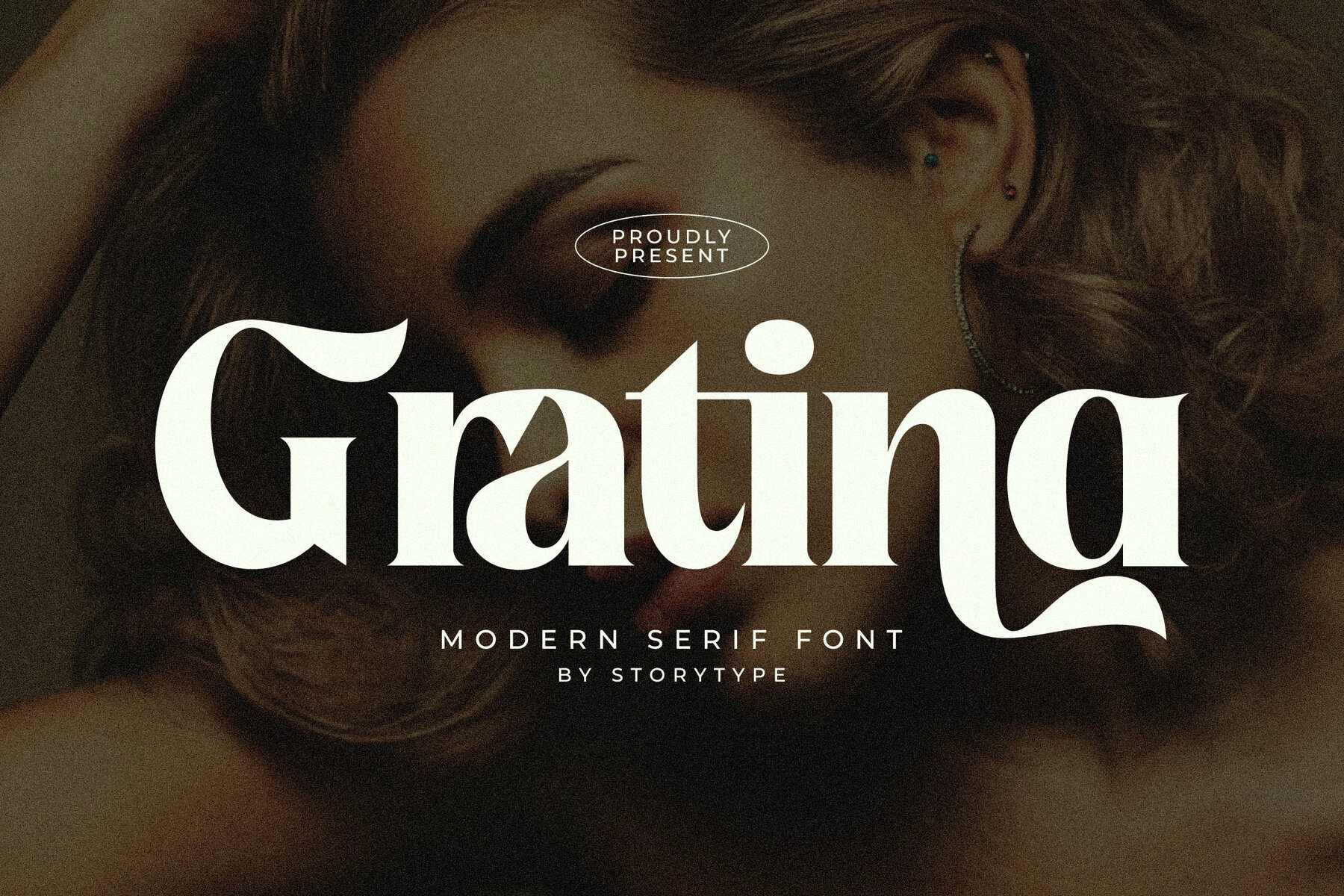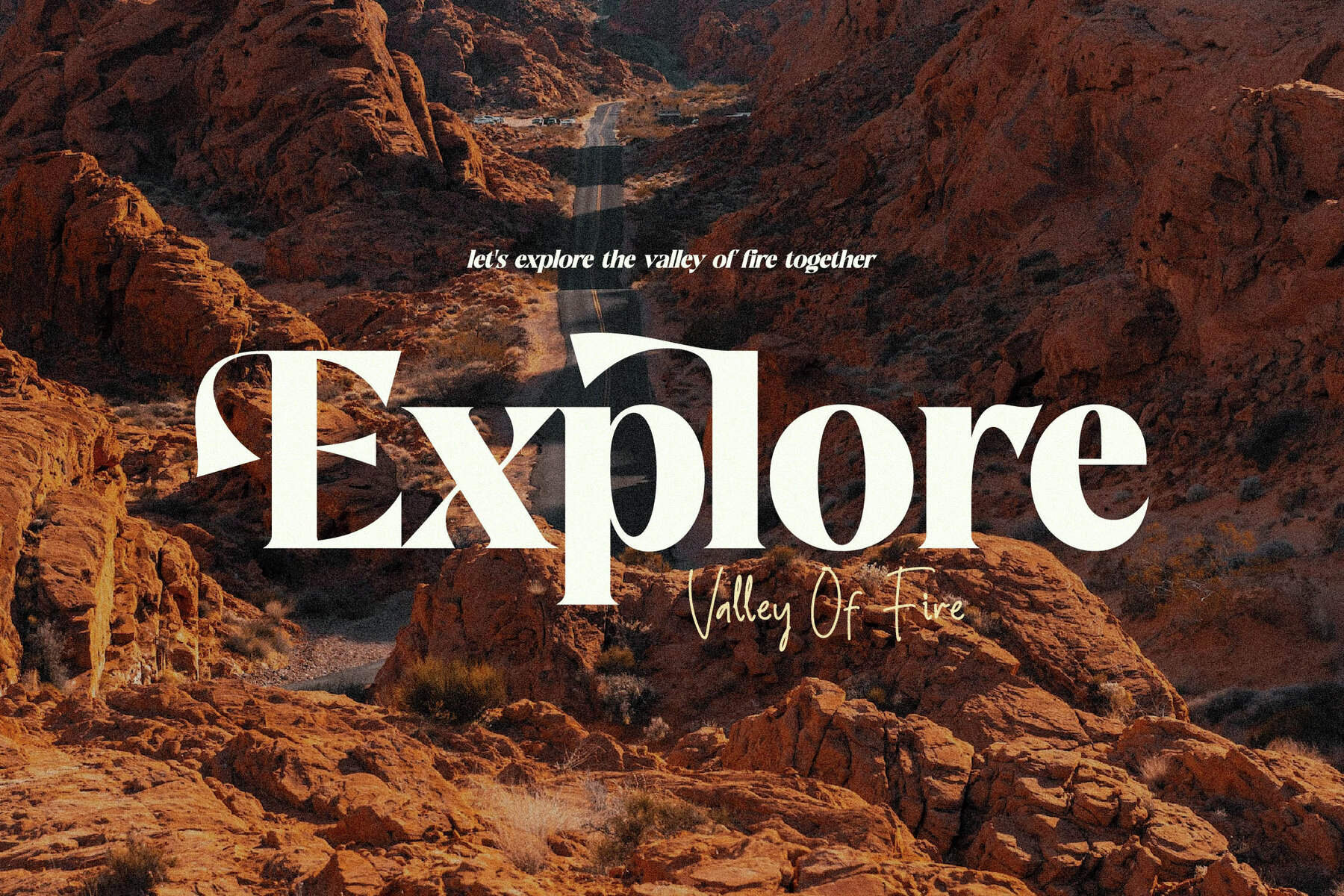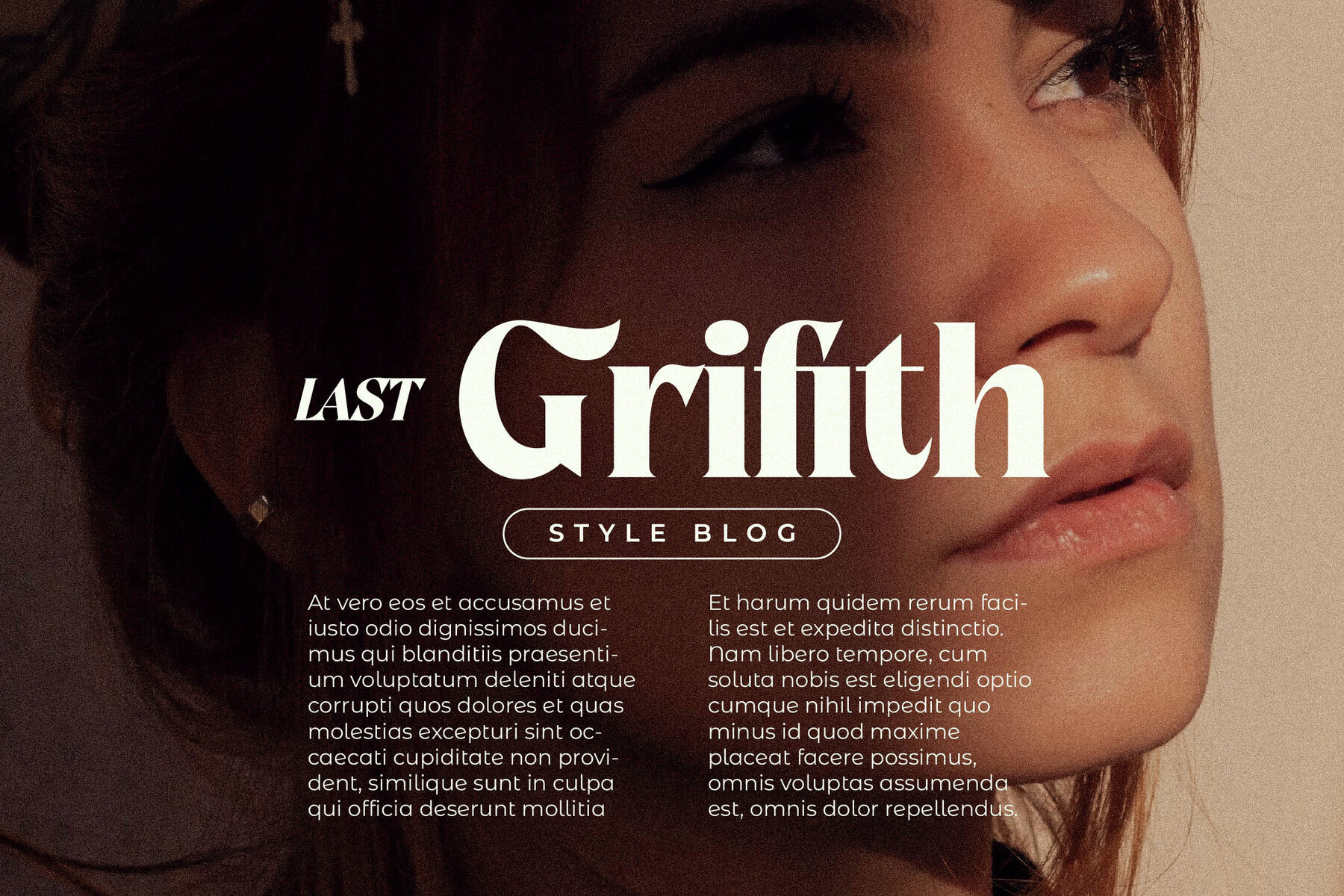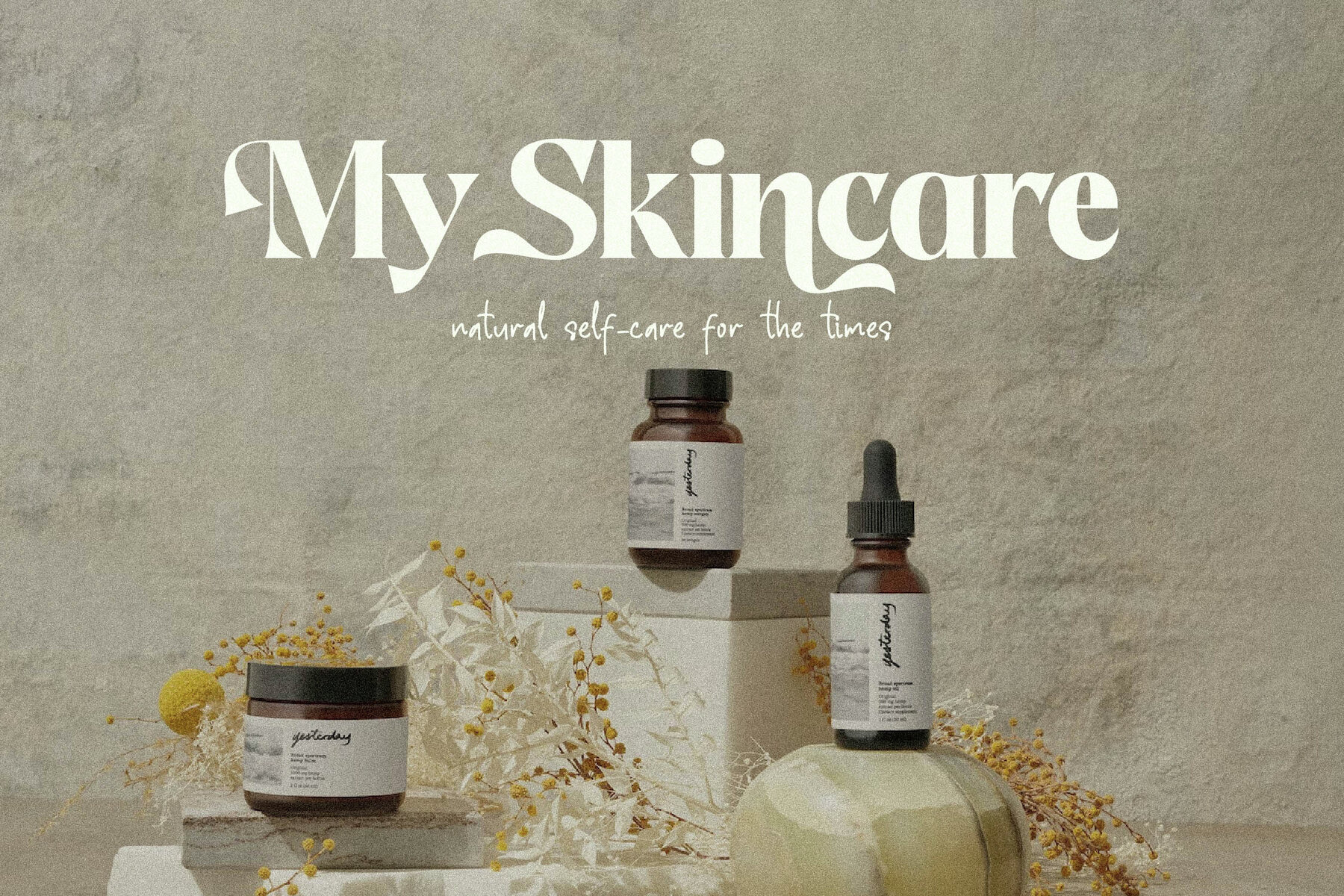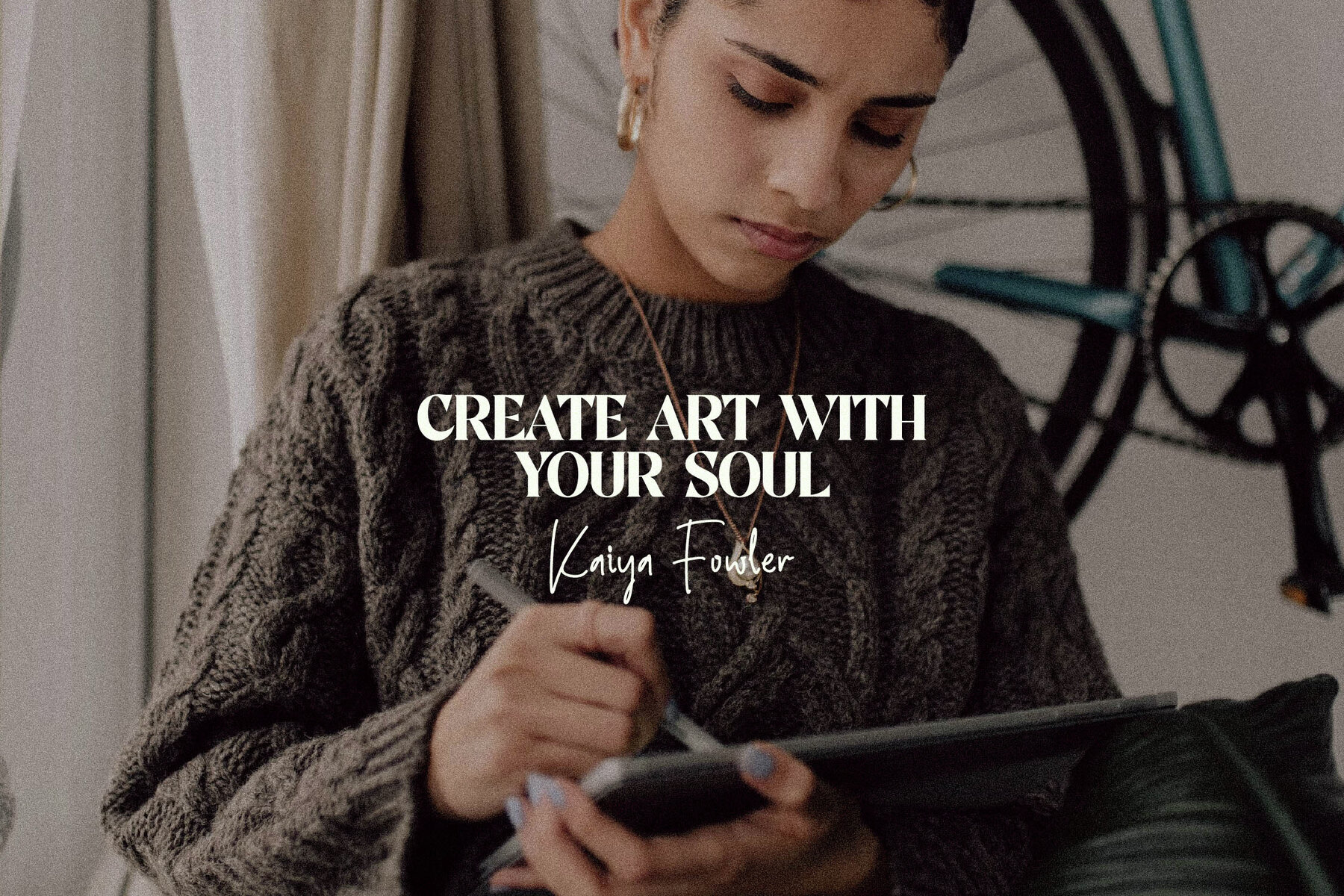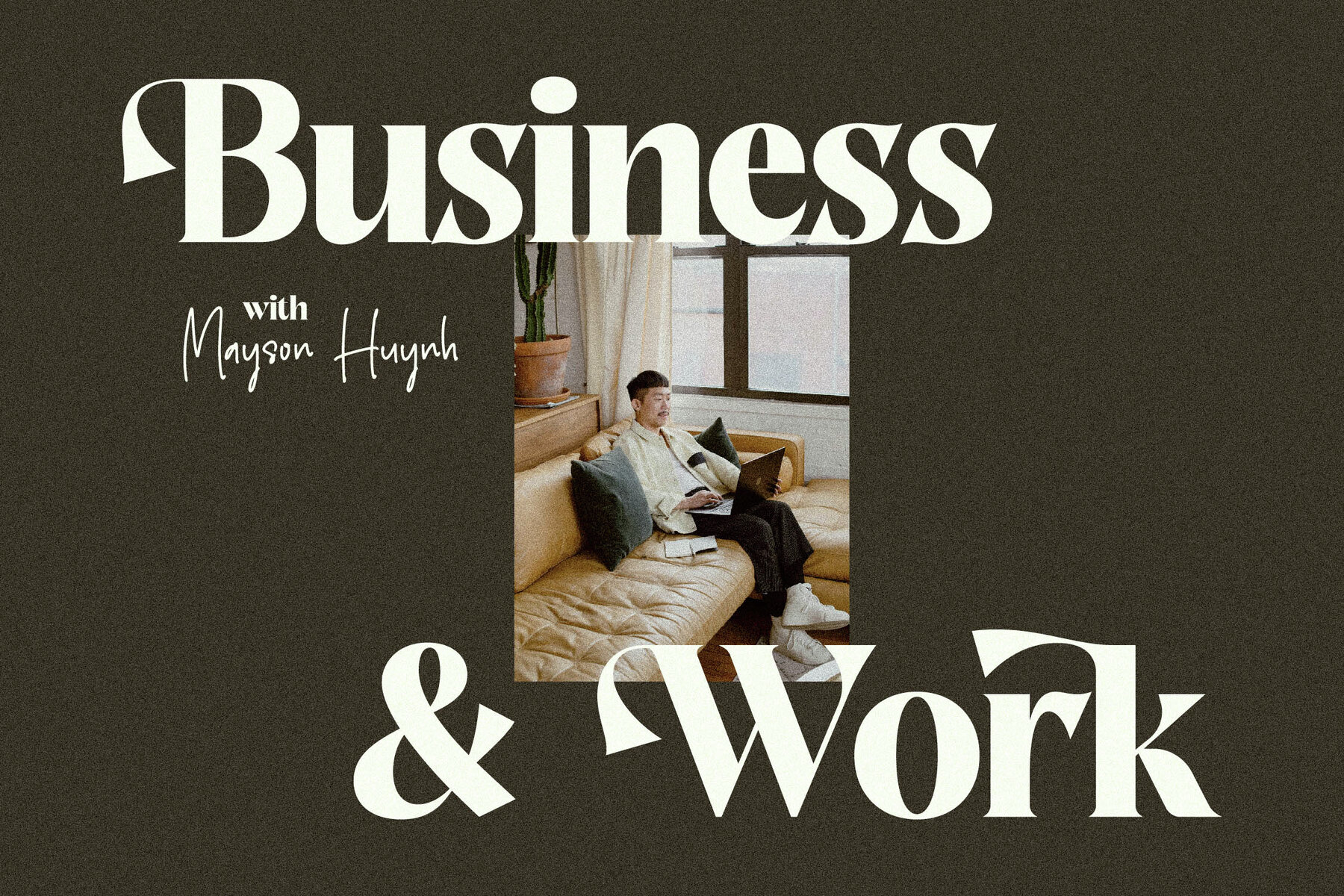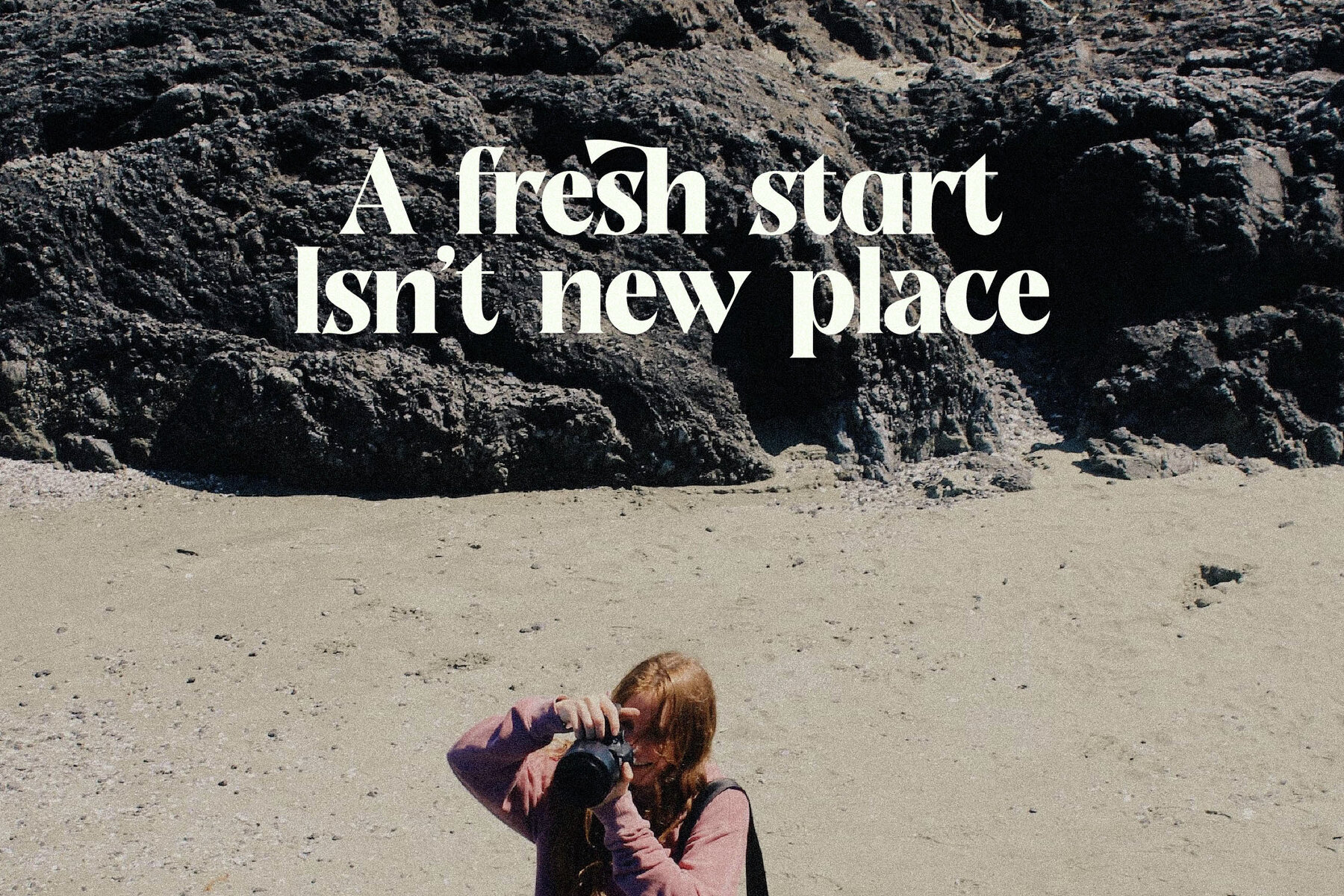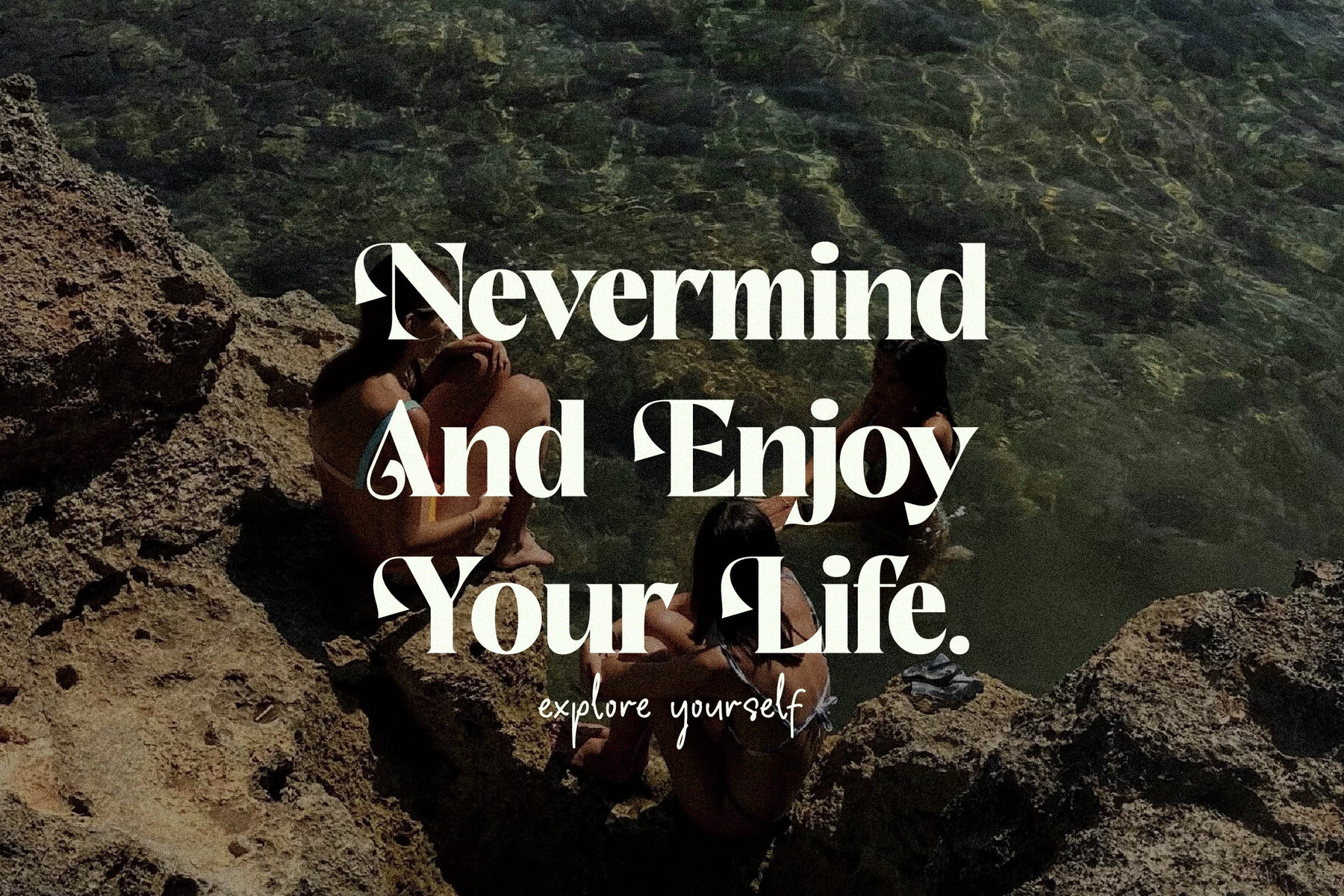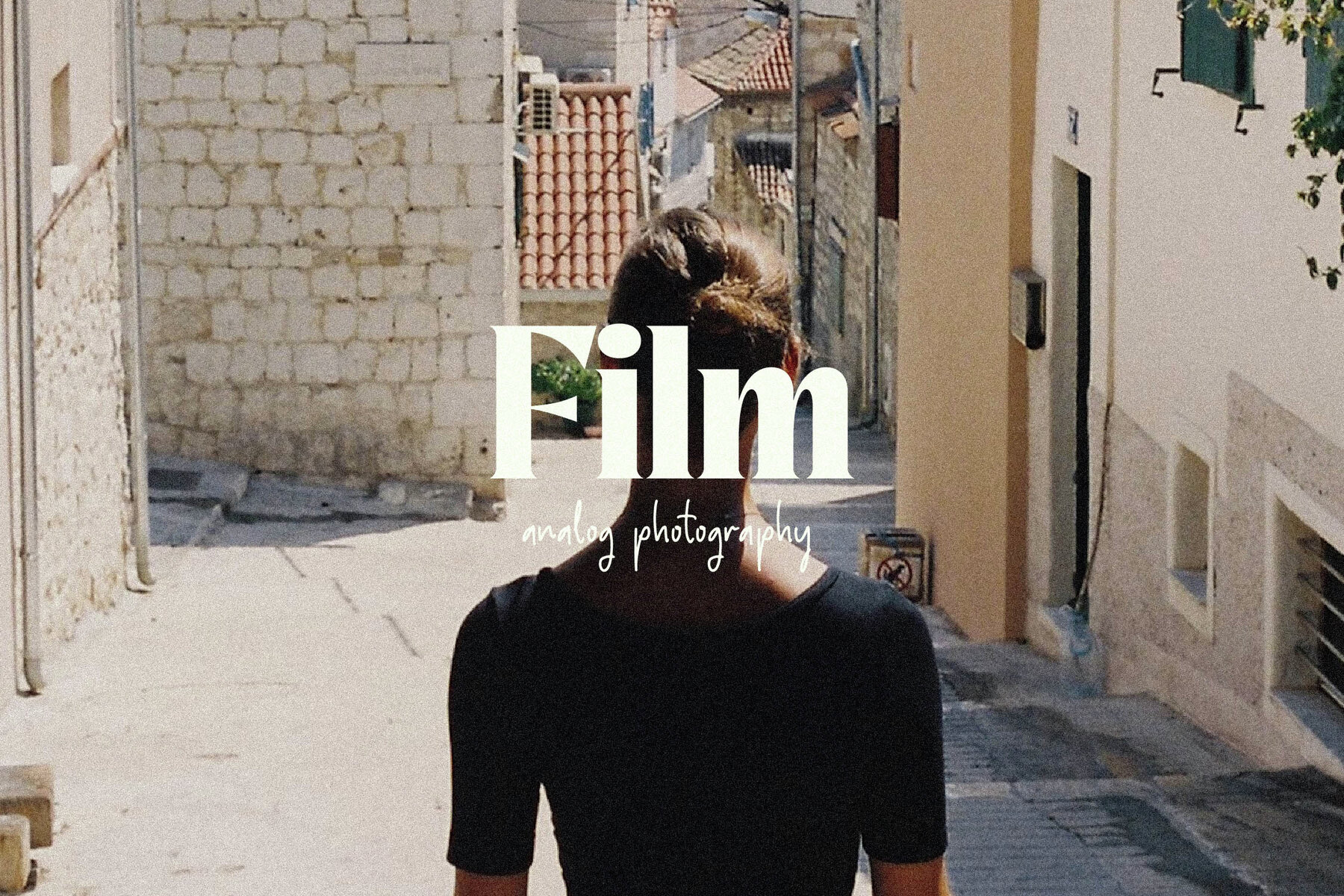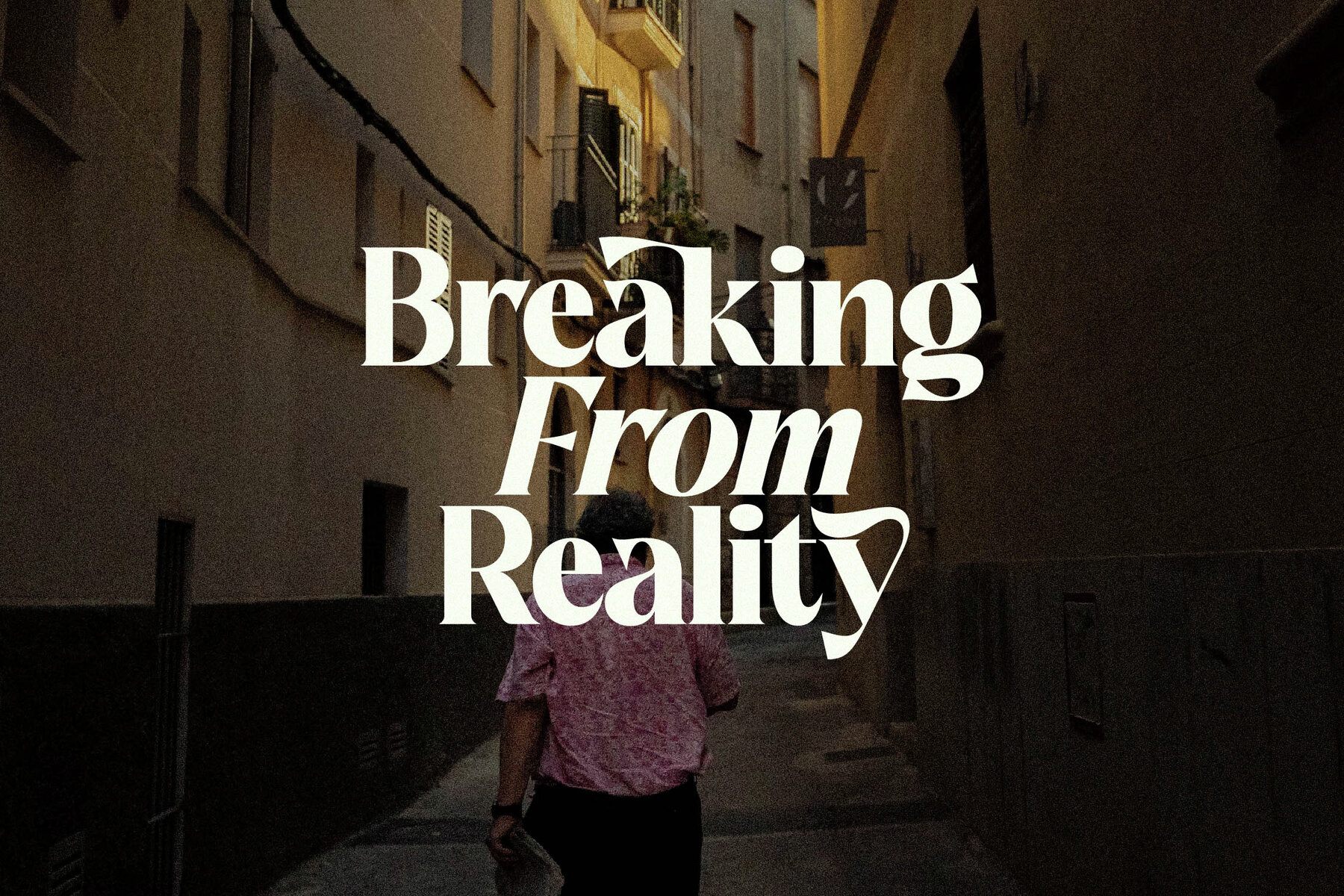
Gratina Font
Gratina Typeface is a distinguished serif font offering a modern yet classic appeal, embodying a unique style and contemporary look. Ideal for a spectrum of uses, Gratina elevates branding with its sophisticated presence, perfectly suited for luxury logos, book or movie titles, and fashion brands. Its versatility extends to magazine layouts, apparel design, and expressive lettering.Gratina Typeface: A Blend of Modern Elegance